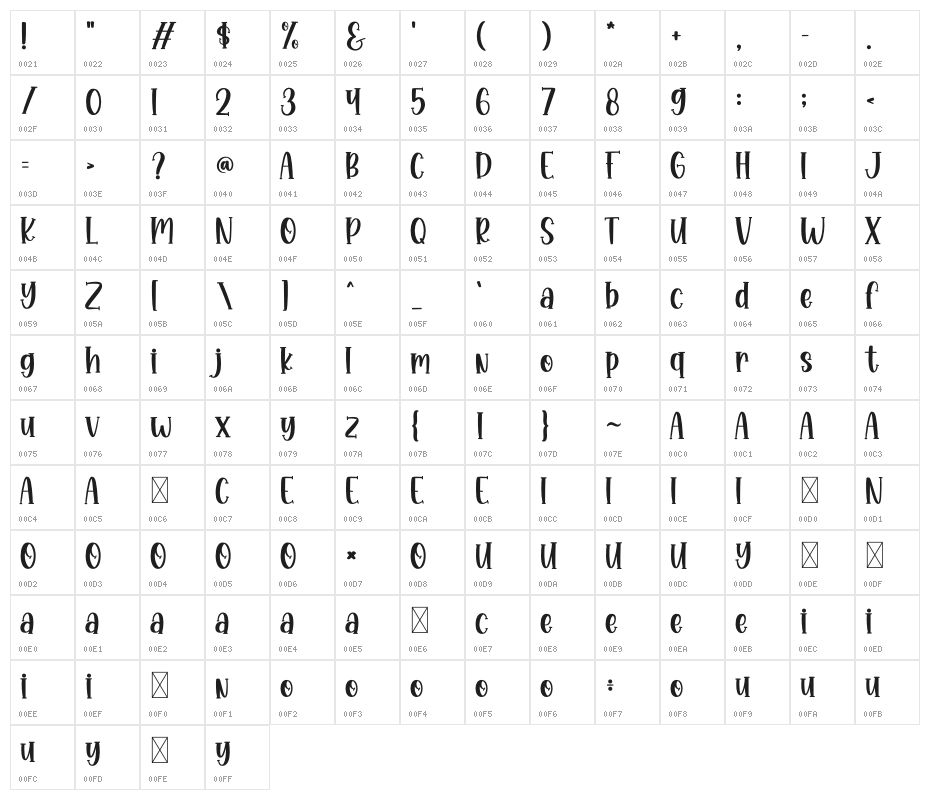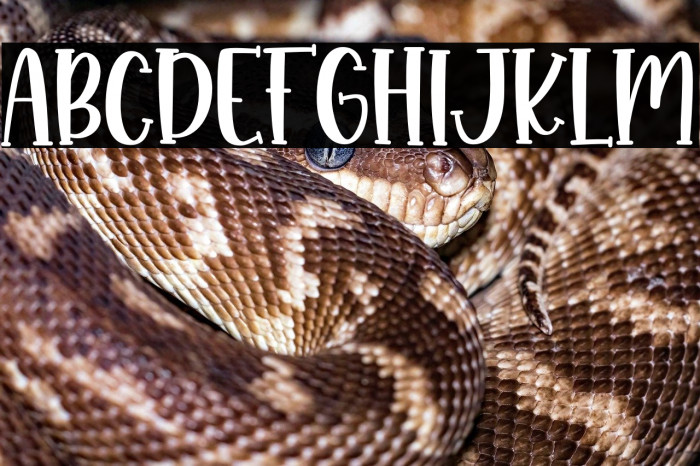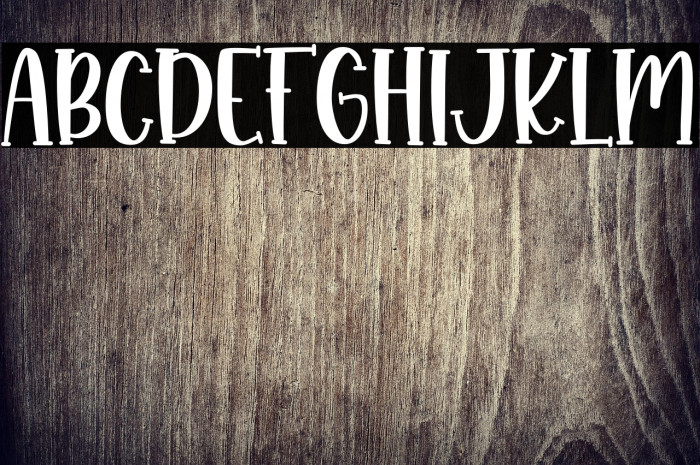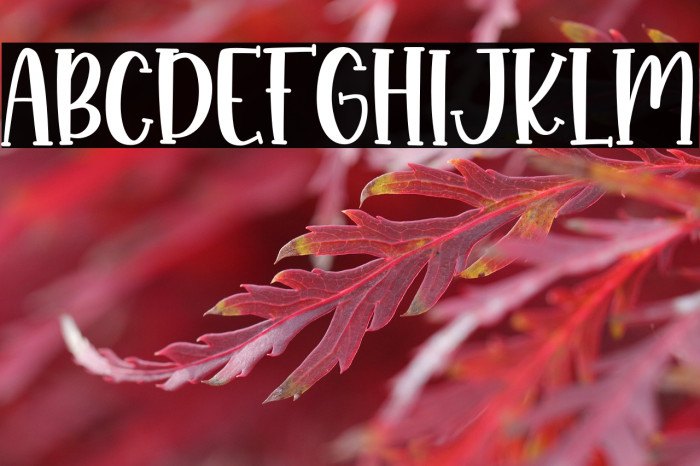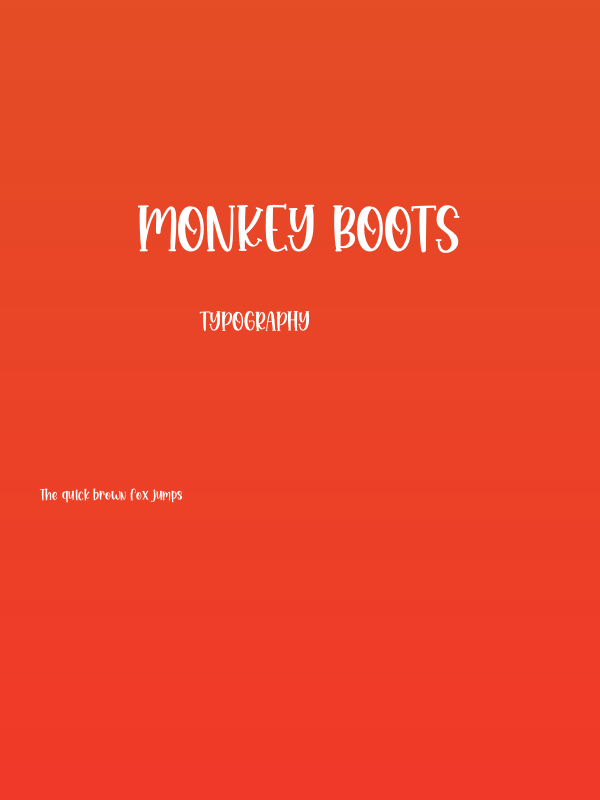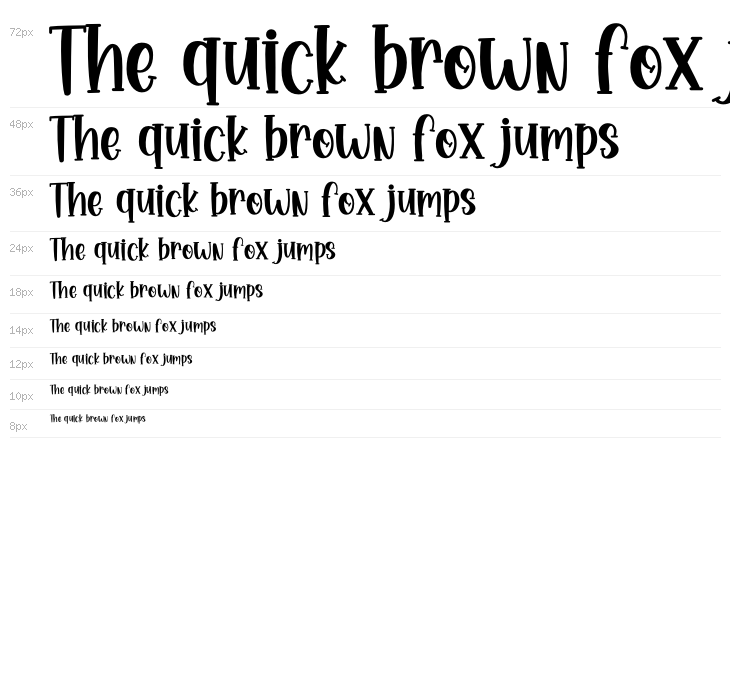
Monkey Boots Font
Monkey Boots Description
This font features a playful and whimsical design with a handwritten style that exudes a sense of fun and creativity. The characters are bold and slightly irregular, giving them a lively and dynamic appearance. The uppercase letters are tall and narrow, while the lowercase letters have a more rounded and casual feel. The numbers and special characters maintain the same playful aesthetic, making the font versatile for various creative projects. The strokes are consistent in thickness, providing a uniform look across all characters. This font is ideal for projects that require a touch of personality and charm.